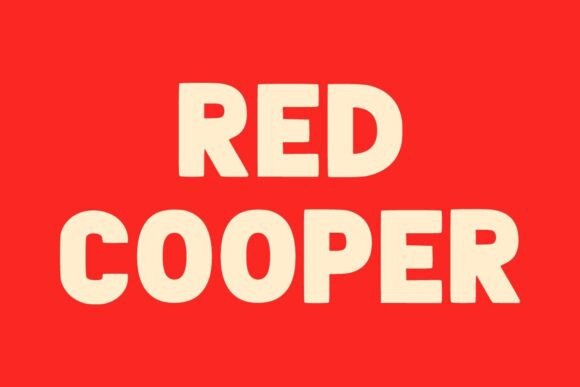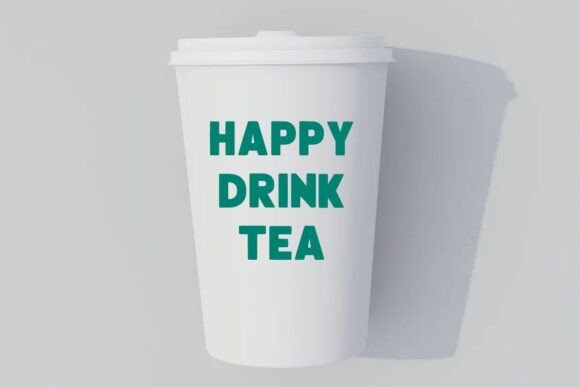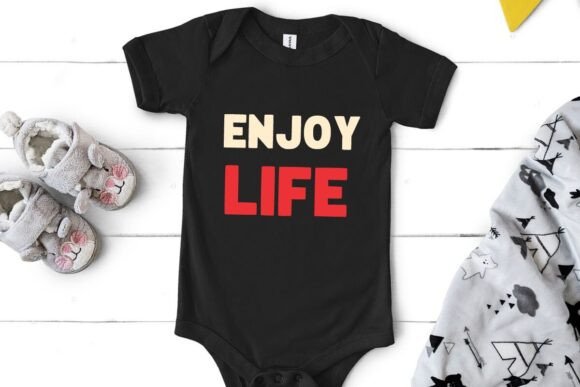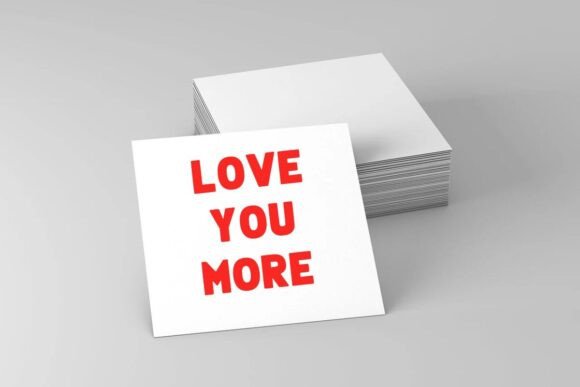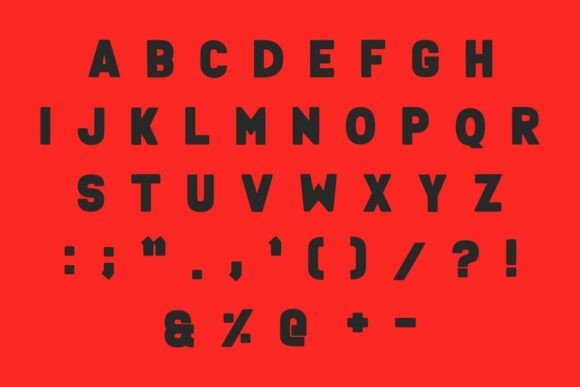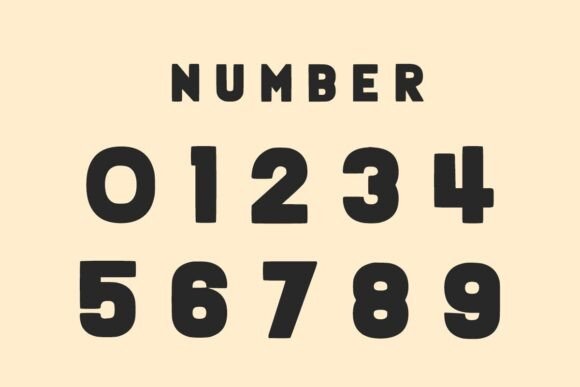
Introduction to Retro Square Font
Retro Square is a trend style, Bold, and childish, easy-to-read display font that conveys impeccable friendliness.
Whether youโ€™re using it for crafts, digital design, presentations, or greeting cards, this font has the potential to become your favorite go-to font, no matter the occasion .
Key Features of Retro Square Font
Why Choose Retro Square Font?
Retro Square Font offers exceptional quality and versatility, making it a valuable addition to your design toolkit. Whether you’re creating for personal projects or commercial use, Retro Square Font delivers professional results.